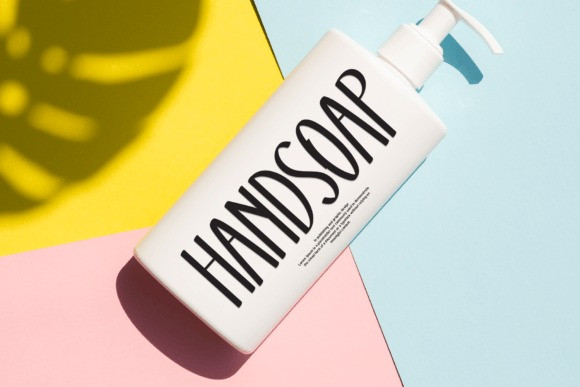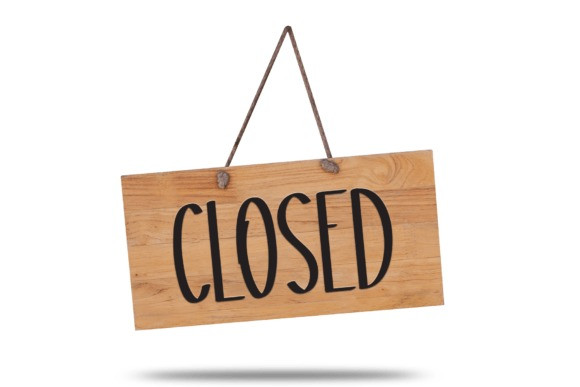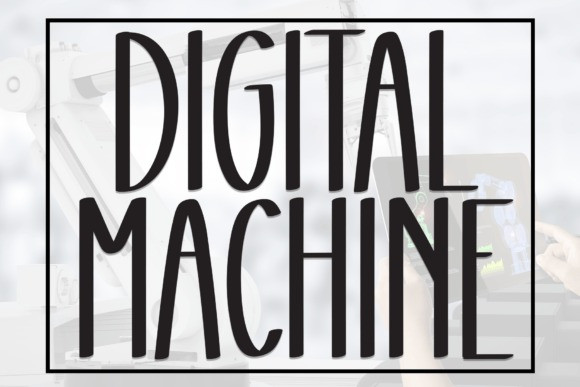
Digital Machine Font
Digital Machine Font is a sweet and friendly handwritten font. Versatile and cute, this font is ideal for writing wedding invitations, cards, or any other design that might need a fun touch!